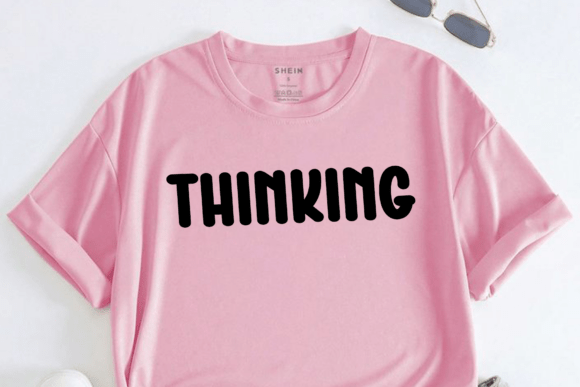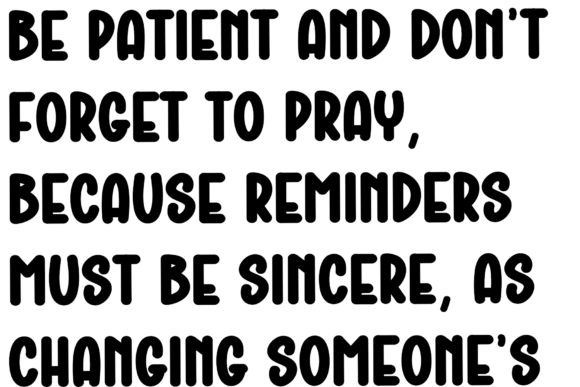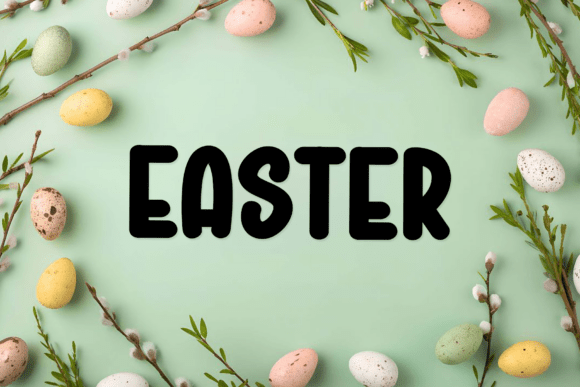
Introduction to Honey Marie Font
Honey Marie: Simple Handmade Font Infuse your projects with a burst of sweetness and warmth using Honey Marie, a delightfully simple handmade font.
This typeface features chunky, rounded letterforms with a soft, “bouncy” rhythm that feels approachable and friendly Its bold silhouette and clean terminals provide excellent legibility while maintaining a whimsical, hand-crafted aesthetic.
Honey Marie Font offers exceptional quality and versatility, making it a valuable addition to your design toolkit. Whether you’re creating for personal projects or commercial use, Honey Marie Font delivers professional results.